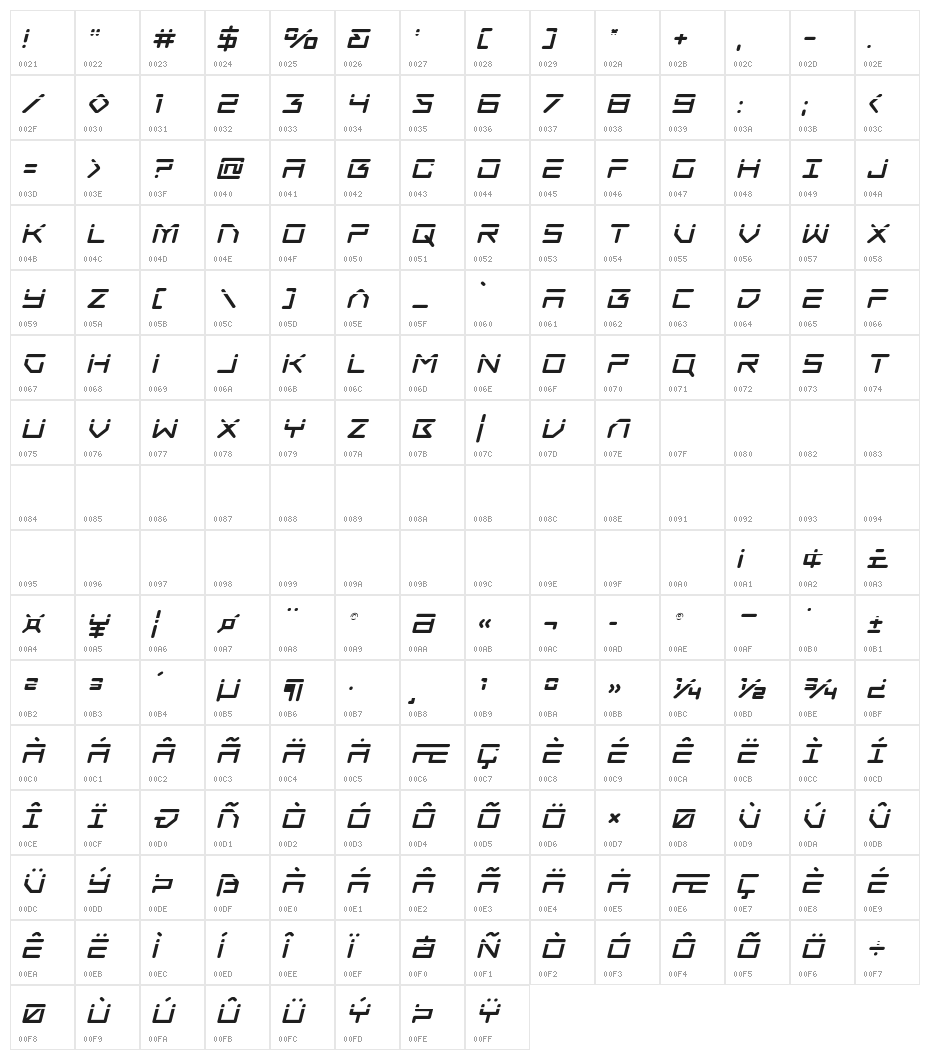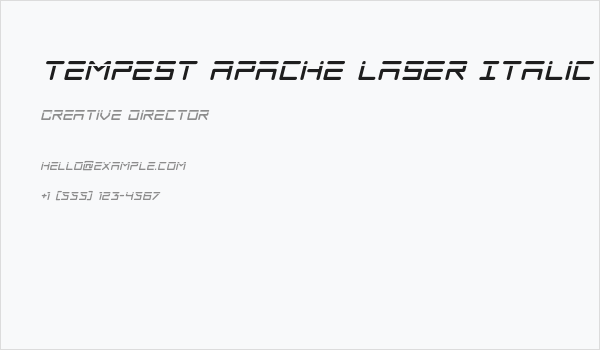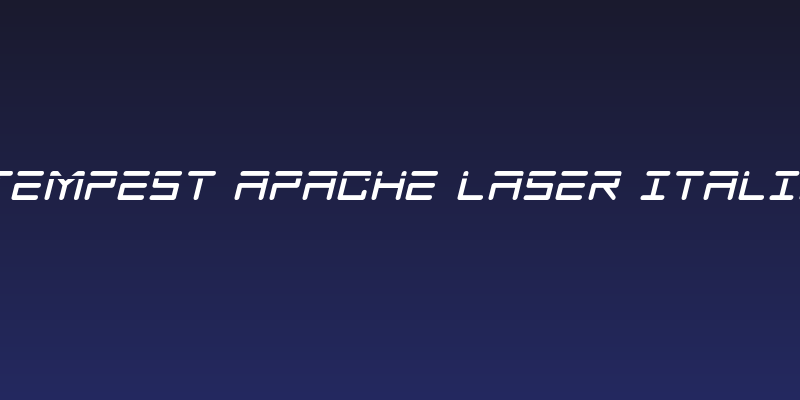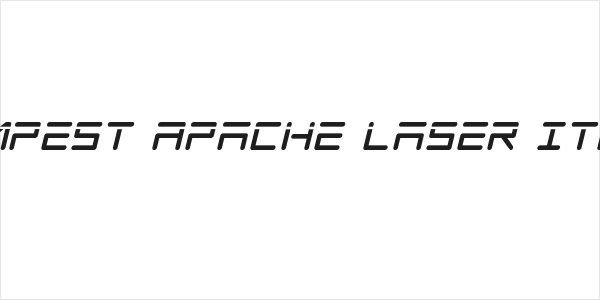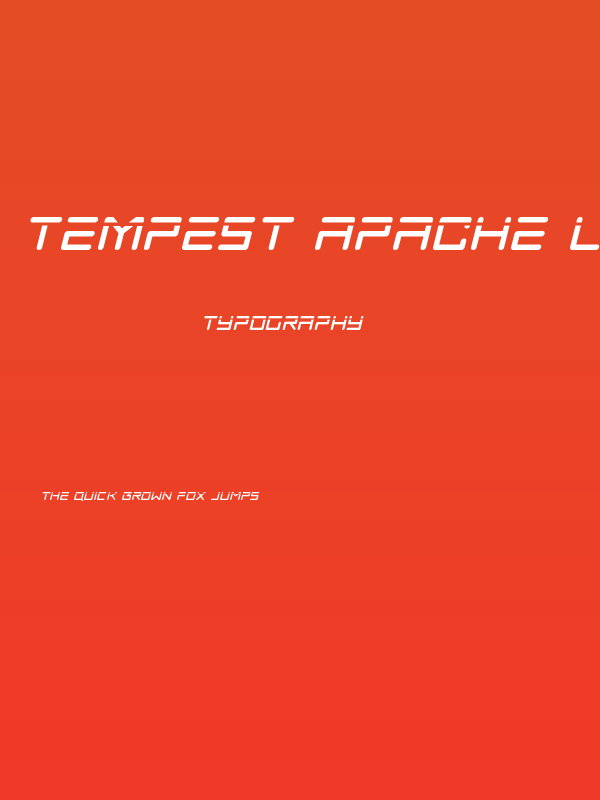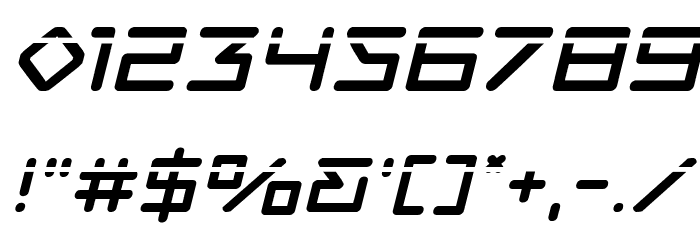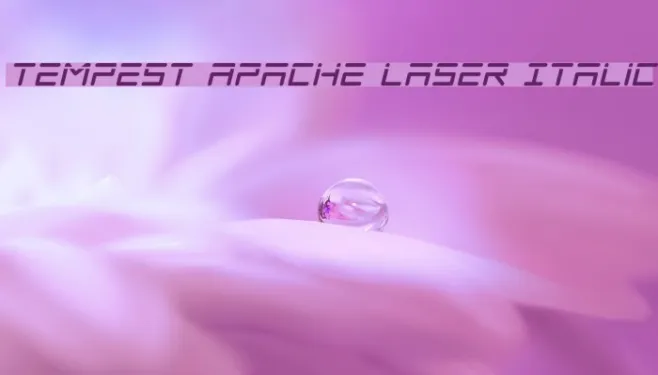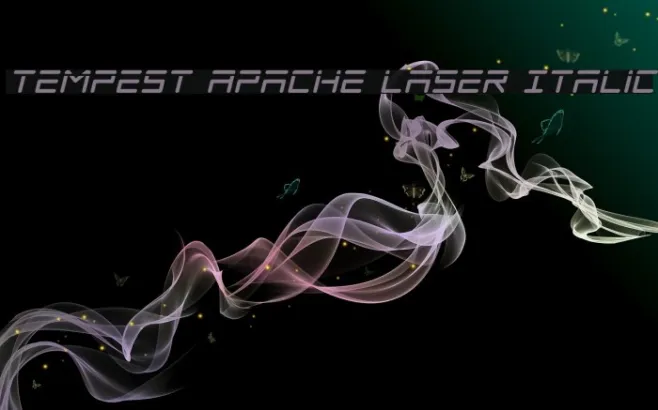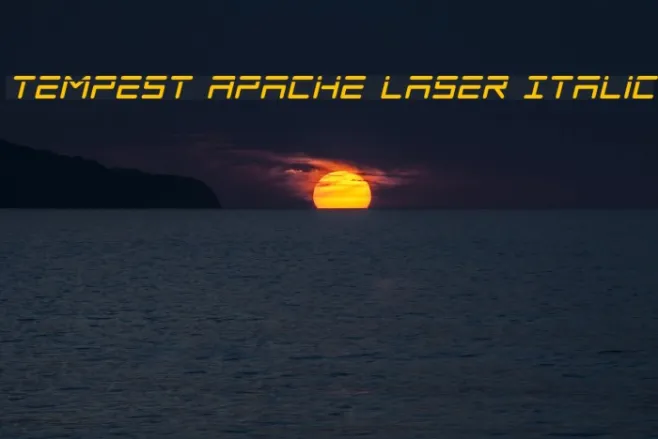
Tempest Apache Laser Italic Font
Tempest Apache Laser Italic Description
This font features a futuristic and angular design, characterized by its sharp edges and geometric shapes. The letters are slightly slanted, giving it an italicized appearance that enhances its dynamic and modern feel. The strokes are consistent in width, providing a uniform look across all characters. The font includes both uppercase and lowercase letters, numbers, and a variety of special characters, making it versatile for different uses. Its unique style is reminiscent of digital or sci-fi themes, making it suitable for projects that require a modern and edgy aesthetic.
| Proposed Projects | Ideal for sci-fi themed designs, tech-related branding, video game titles, and futuristic posters. |